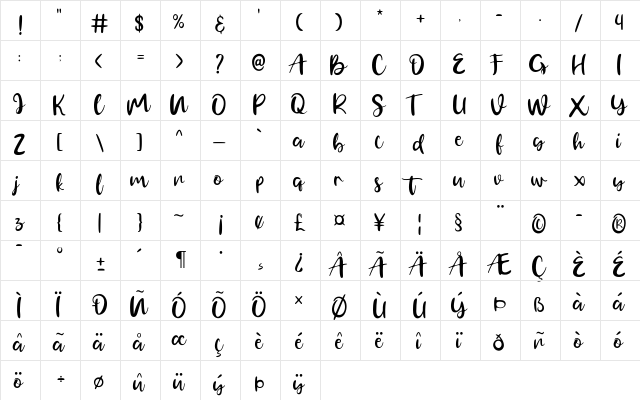
Gerimist Base Regular
| Designer | Zain Fahroni |
Design Context for Gerimist Base Typeface
Gerimist Base is a composed and adaptable typeface that performs quietly and consistently across a wide range of design contexts.